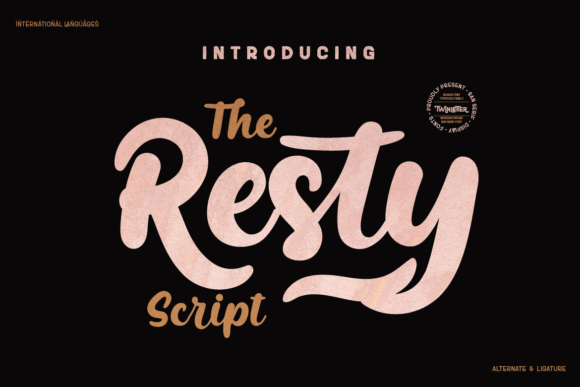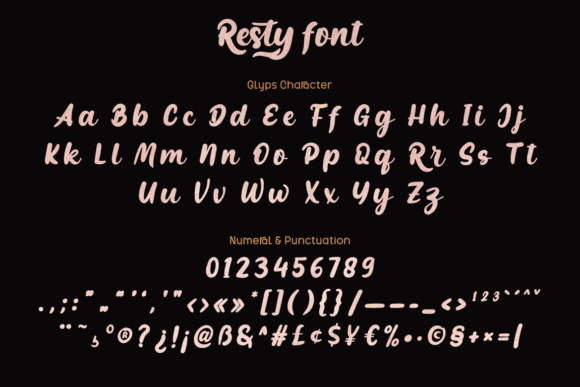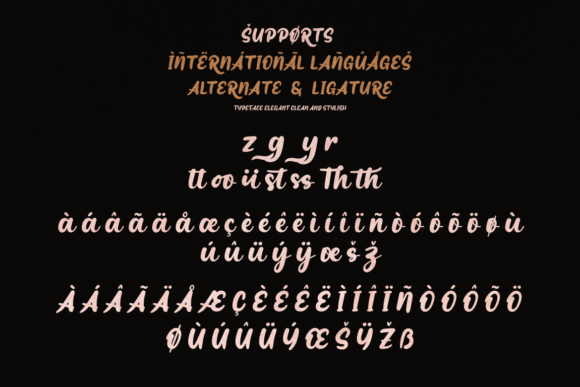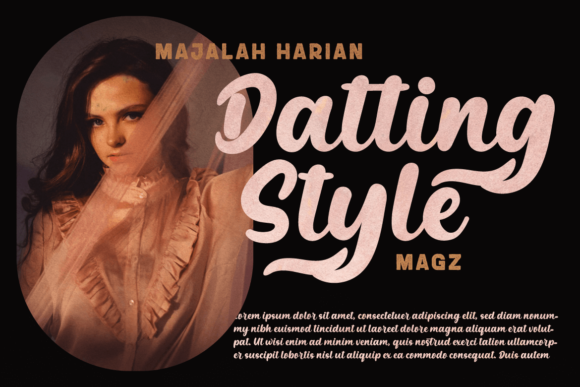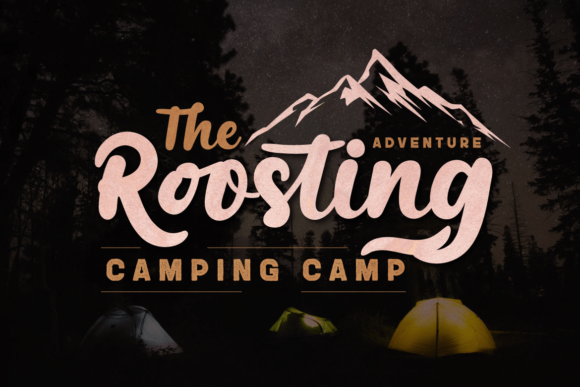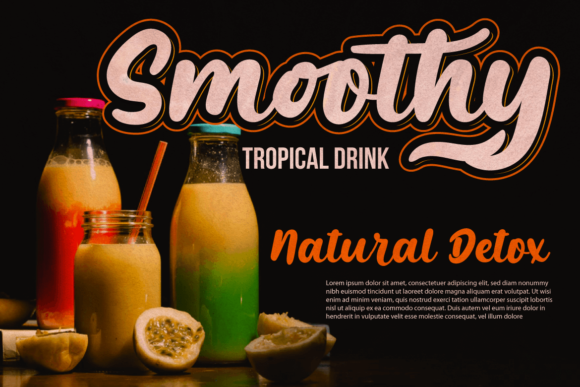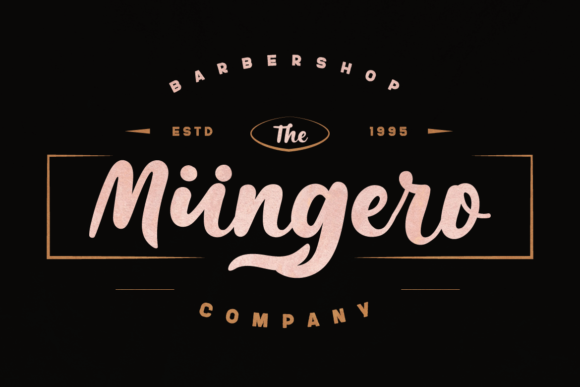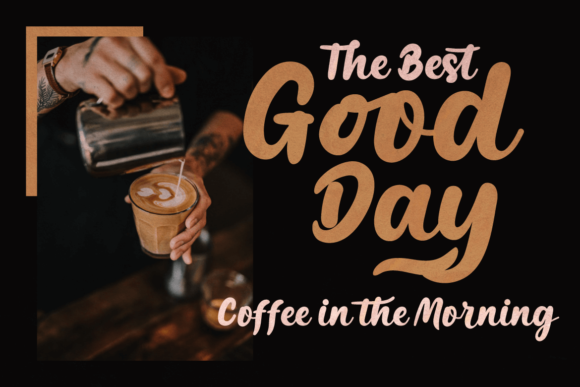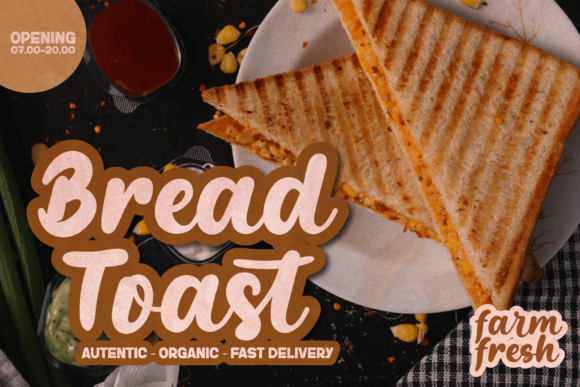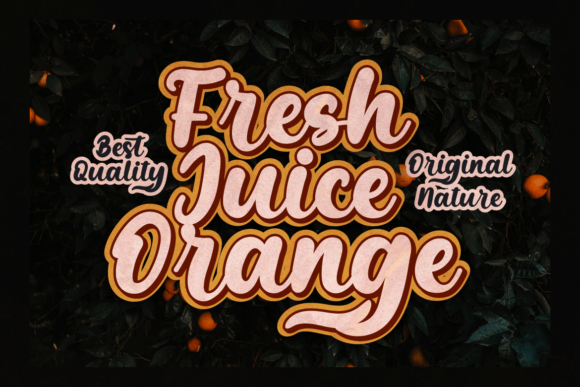
Introducing Resty, a gorgeous and bold handwritten font designed to give your headlines and logotype projects a stylish touch. With its strong and confident letterforms, Resty exudes a sense of dynamism and adds a touch of nostalgic character to your designs.
Resty’s stunning and bold letterforms make a powerful statement. Each character is crafted with precision and attention to detail, creating a visually striking composition. The font’s handwritten style adds a personal and authentic feel to your designs, making them stand out with confidence.
Resty’s bold and dynamic nature makes it the perfect choice for headlines and logotype projects. Whether you’re creating branding materials, advertisements, posters, or any other visual content that requires attention-grabbing typography, Resty delivers. Its strong and confident appearance grabs the viewer’s attention and leaves a lasting impression.
The nostalgic character of Resty adds an extra layer of charm to your designs. Its handwritten style evokes a sense of authenticity and familiarity, making a connection with your audience. The font’s bold and dynamic look brings a touch of energy and excitement, making your designs visually captivating.
No matter the project or context, Resty has the potential to enhance any creation. Its gorgeous and bold design adds a stylish touch and creates a strong visual impact. Embrace the character of Resty and confidently incorporate it into your designs, bringing a sense of nostalgia and confidence to your headlines and logotypes.
In summary, Resty is a gorgeous and bold handwritten font that adds a stylish touch to your headlines and logotype projects. Its strong, confident, and dynamic letterforms create a nostalgic character and leave a lasting impression. Embrace the power of Resty and let it bring your designs to life with its bold and stylish presence.